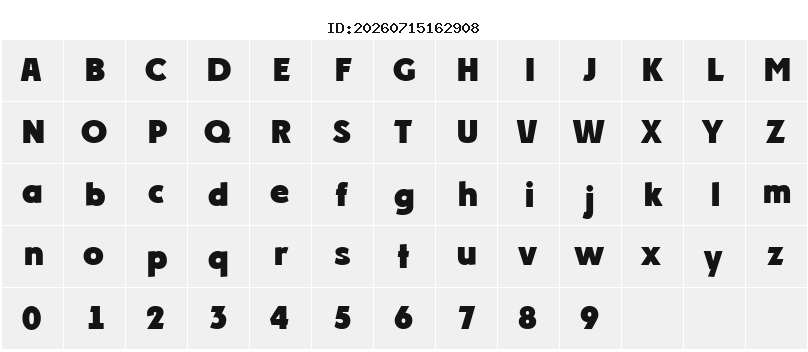
a_Plakat Preview
• Font Name: a_Plakat
• Font Style: ExtraBold
• Font ID: ArsenalCompany: a_Plakat: 1998
• Full Font Name: a_Plakat ExtraBold
• Designer: W.Chufarofsky & M.Slutsker
About a_Plakat.ttf
a_Plakat.ttf is a modern, elegant sans-serif font designed for ultimate readability and visual harmony. Perfect for branding, headlines, web design, and print materials.